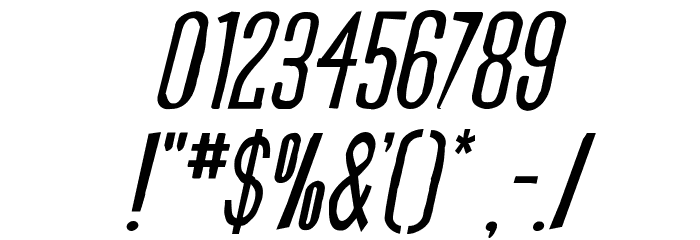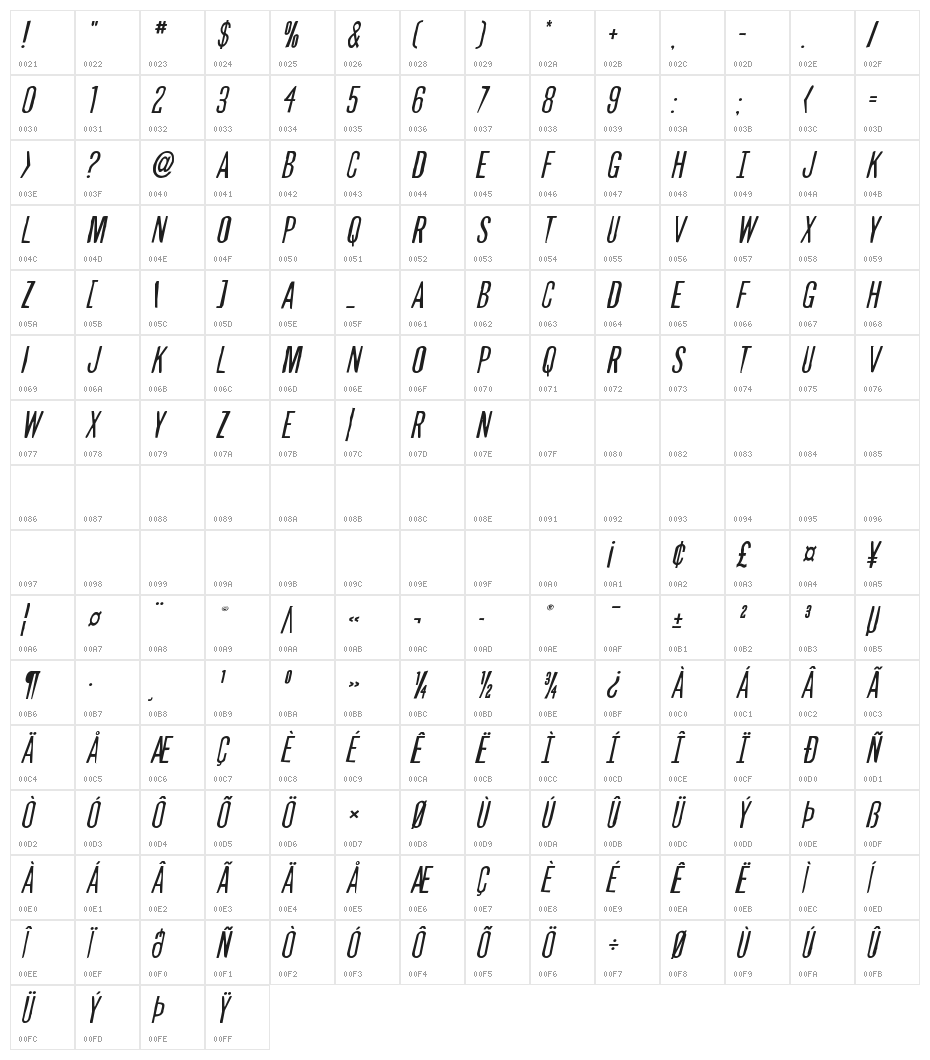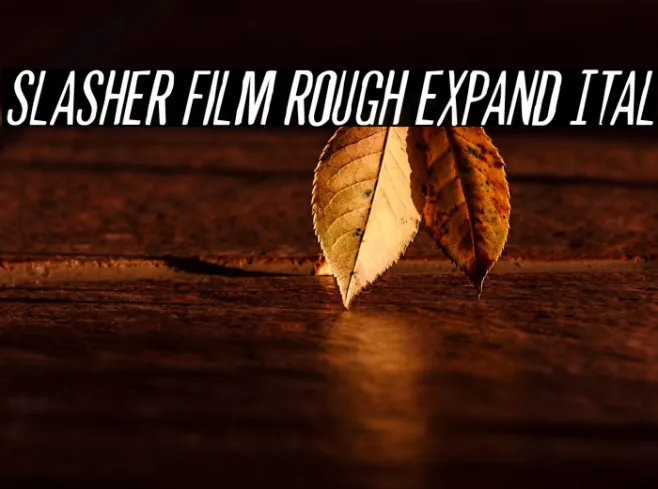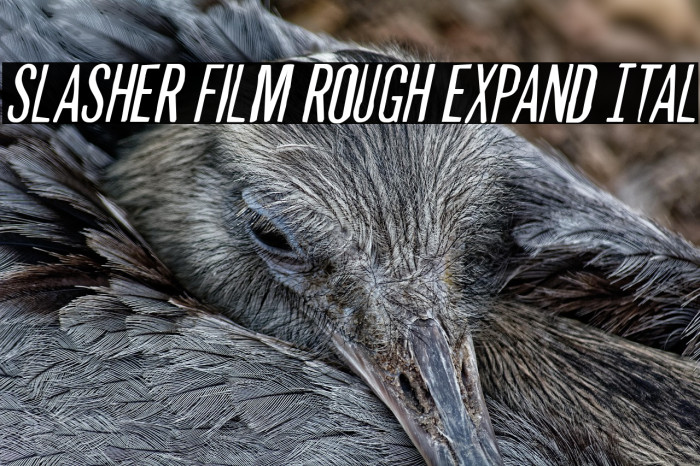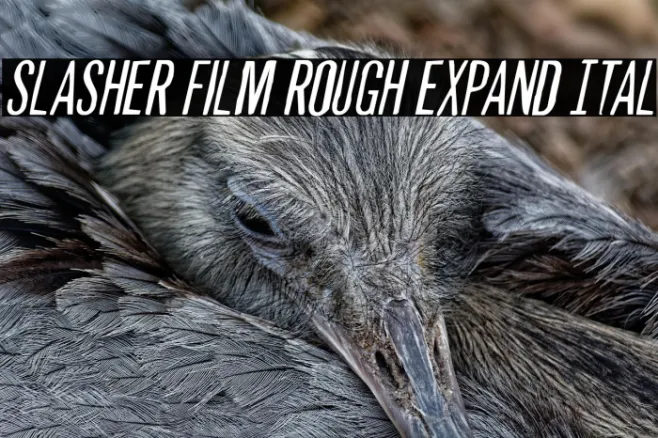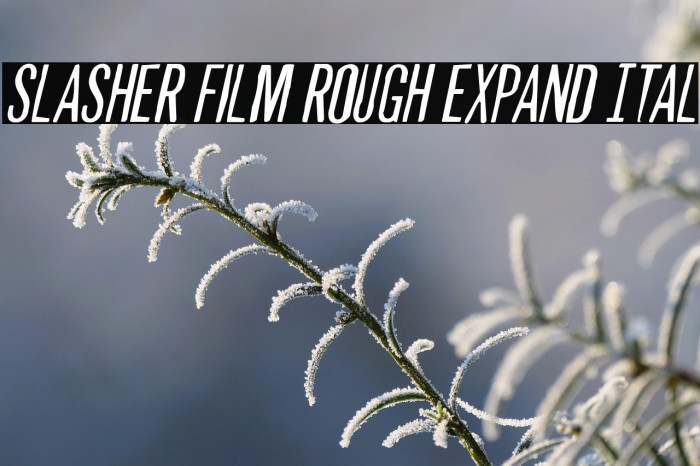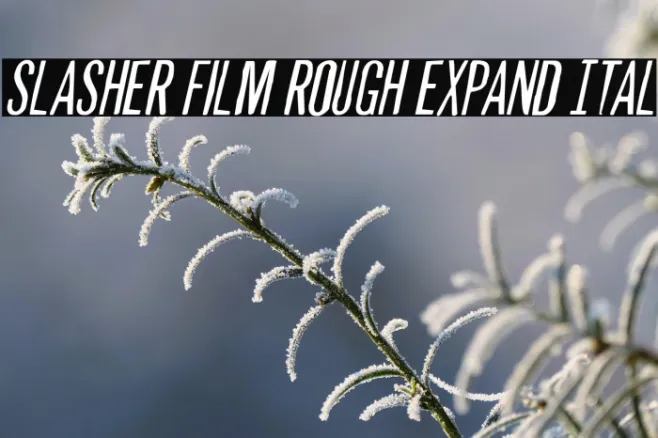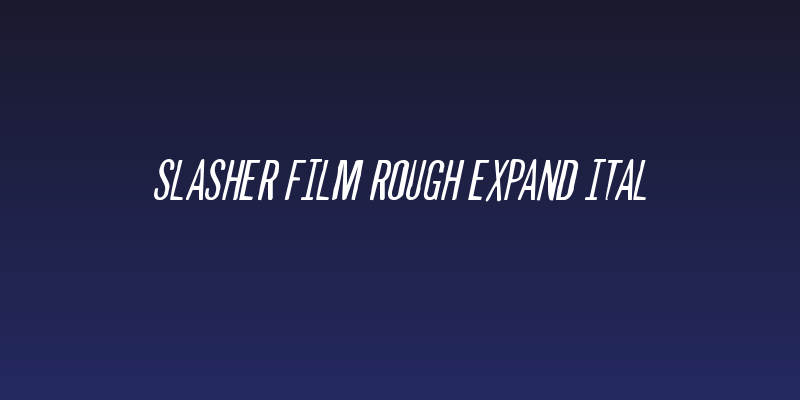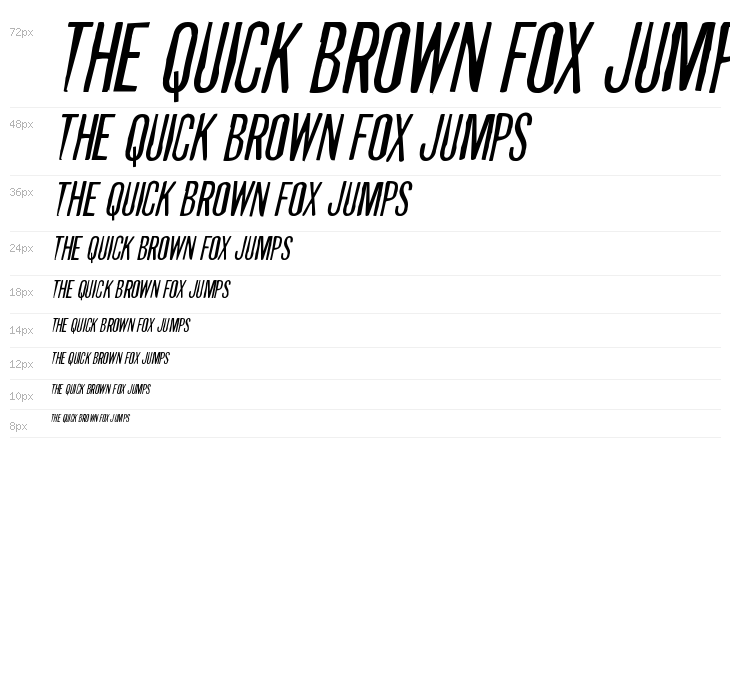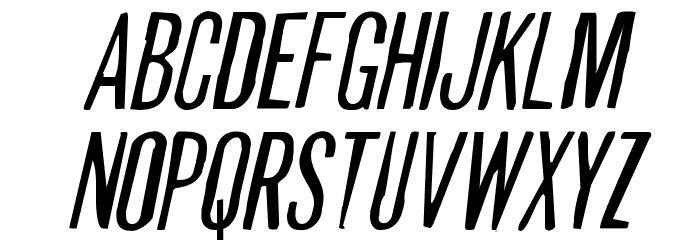
Slasher Film Rough Expand Ital Font
Slasher Film Rough Expand Ital Description
This font features a bold, italicized style with a rough, edgy appearance. The characters are elongated and slightly condensed, giving them a sharp, dynamic look. The strokes are consistent in thickness, providing a medium contrast that enhances readability while maintaining a distinctive flair. The font's design is reminiscent of vintage horror or thriller movie posters, with a modern twist that makes it suitable for various creative applications. Its unique style is both eye-catching and memorable, making it ideal for projects that require a bold statement.
| Overall Style | Modern, Vintage |
| Proposed Projects | Ideal for movie posters, book covers, album art, and branding that requires a dramatic and bold aesthetic. |